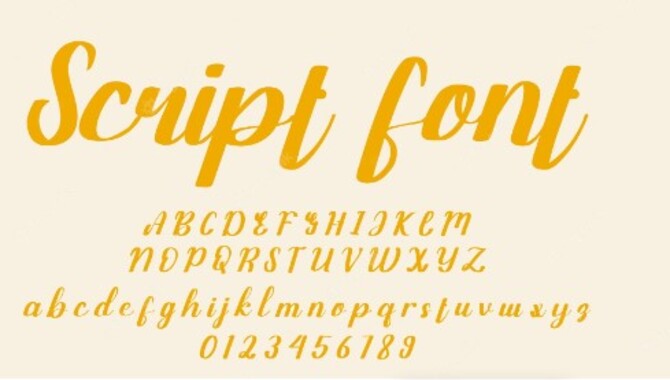
Script fonts in Microsoft Word add elegance to your documents, presentations, and projects. These decorative fonts imitate handwriting and calligraphy.
Script Font In Microsoft Word
6.Select And Use The Font
Download and install the desired font on your computer to use a script font in Microsoft. Locate the font file in your file explorer and right-click to install. Open Microsoft Word and create a new document. In the toolbar, select the newly installed script font from the dropdown menu next to the font name. The font will be applied to your paper.
Incorporating script fonts into your Microsoft Word documents can bring a sense of flair and originality to your work. By following the simple step-by-step instructions in this guide, you can effortlessly acquire and install the script font of your choice.
Whether you’re creating personal projects or professional documents, having access to a diverse range of fonts can significantly enhance the visual appeal of your work. Begin exploring the vast array of script fonts available and elevate your Microsoft Word documents today. For further guidance on utilizing fonts in Microsoft Word, consult our comprehensive guide on installing script font in Microsoft Word, packed with additional tips and tricks.
5.Can I Purchase An Already Installed Script Font For My Word Processor, And How Much Does It Cost?
Ans: You can purchase and install script fonts for your word processor from websites like Adobe Fonts, MyFonts, and Fontspring. Prices vary depending on the font and licensing options, ranging from a few dollars to several hundred dollars for commercial use.